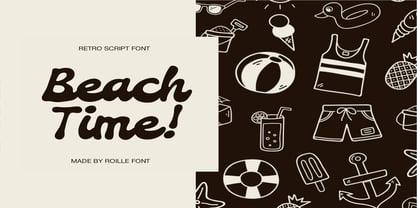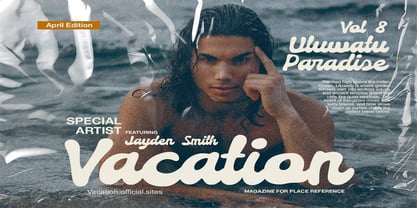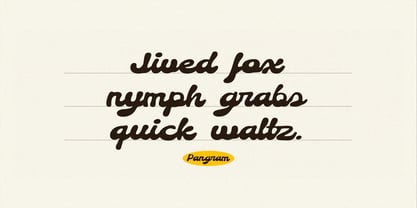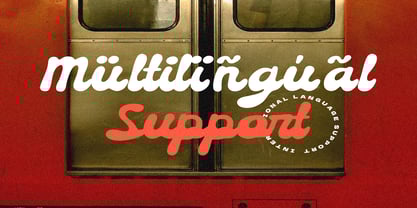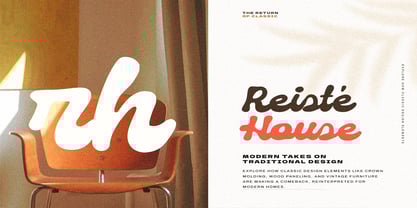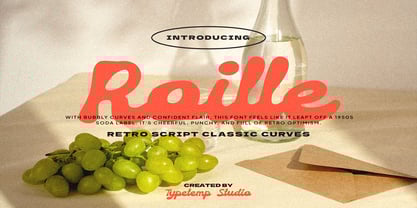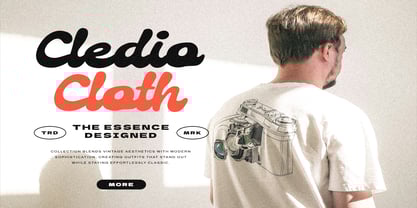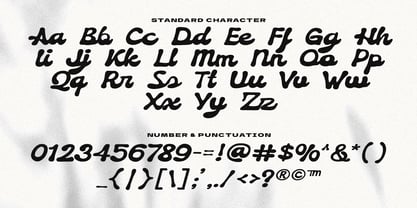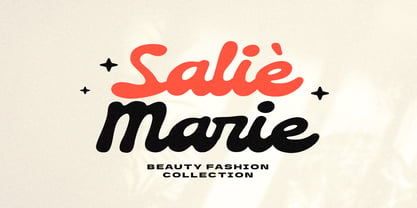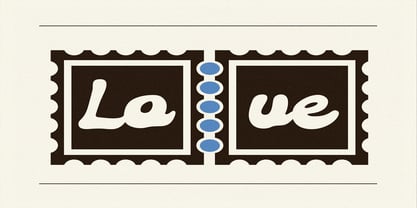
Roille
by Typetemp Studio
The Roille Font Family was designed by Haris Purnama Putra, Egi Ahmad Mufid and published by Typetemp Studio. Roille contains 1 styles. More about this family
Raille is a retro script font featuring classic curves and bubbly shapes that bring the cheerful spirit of the 1950s to your designs. Inspired by vintage soda labels, this font exudes confident flair and punchy optimism. Perfect for branding, packaging, posters, and any creative project that needs a lively, nostalgic touch with a timeless, friendly vibe.
With its bold yet elegant style, Raille adds character and warmth, making your typography stand out with retro charm and personality.